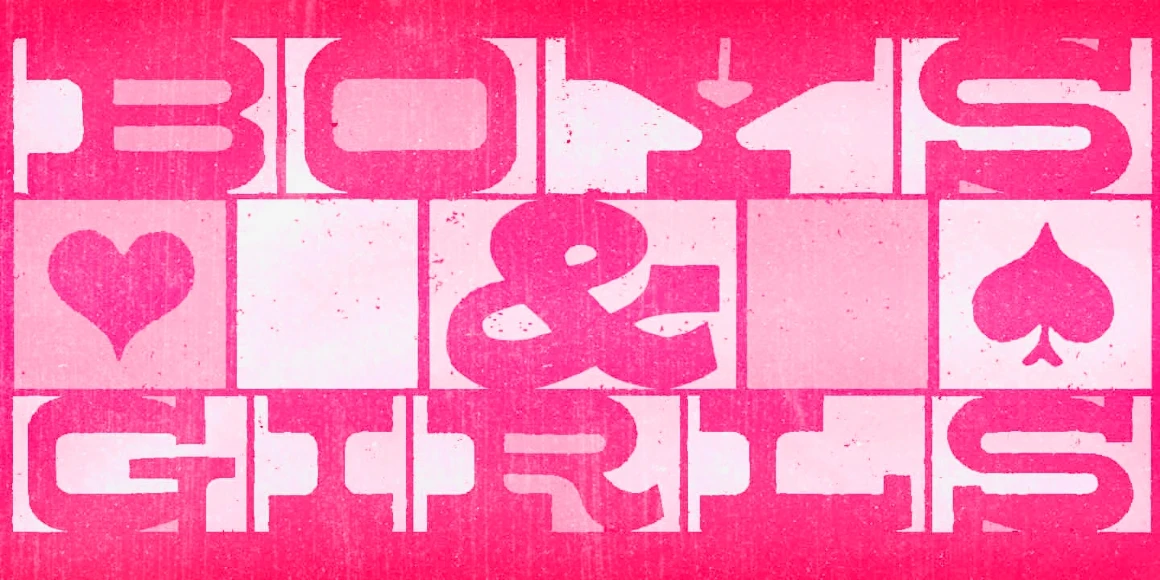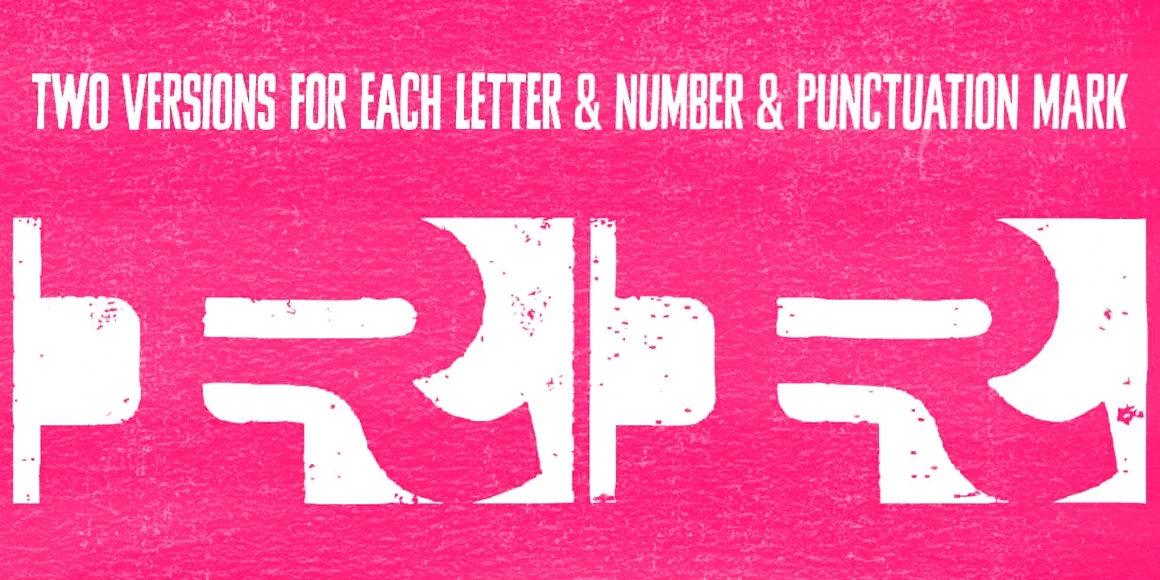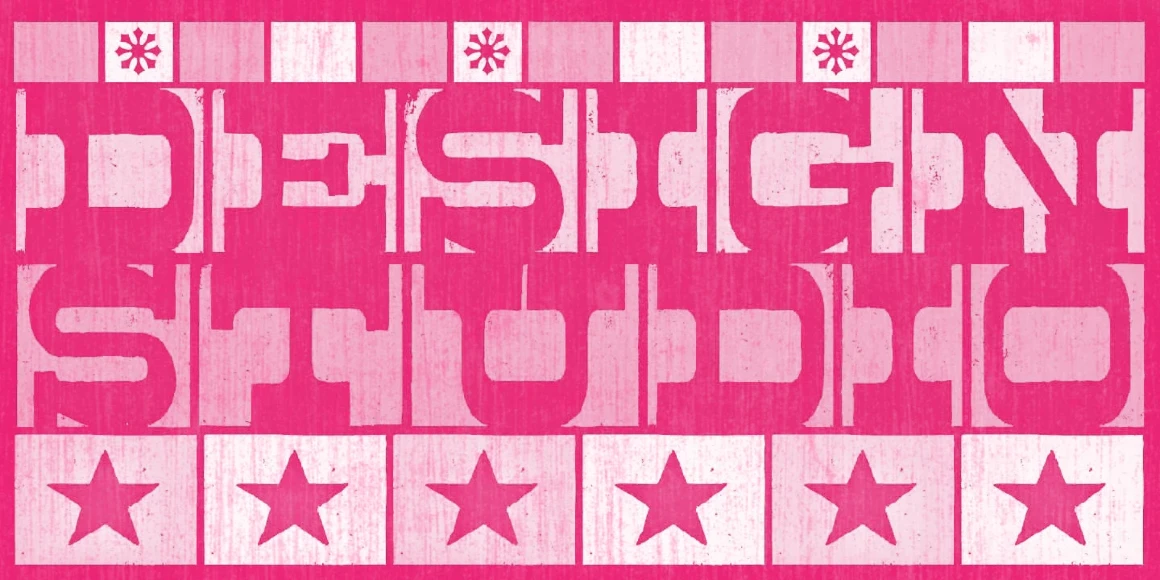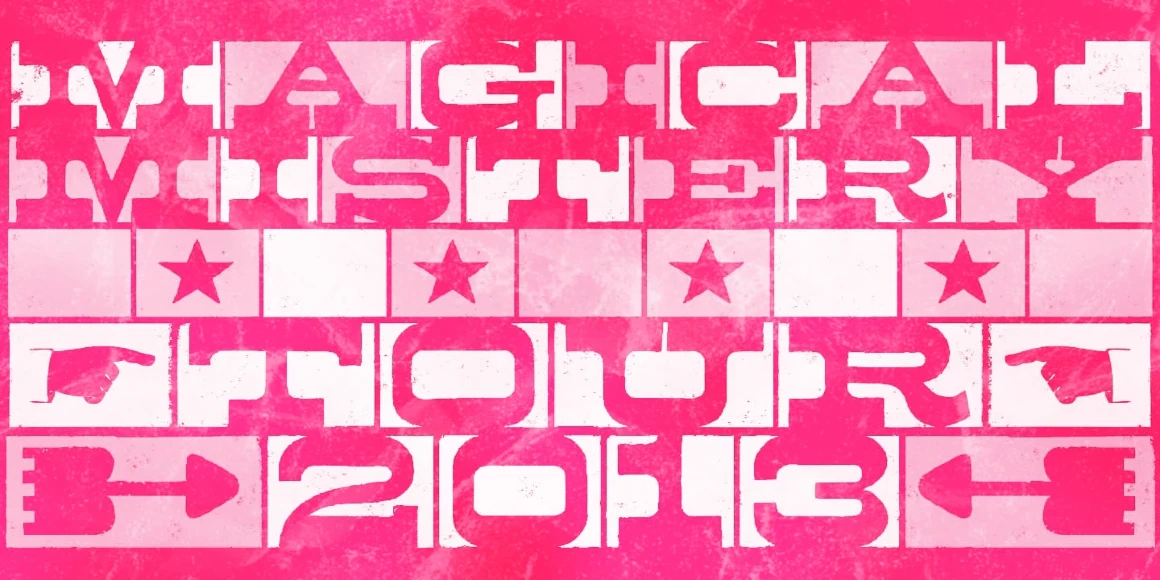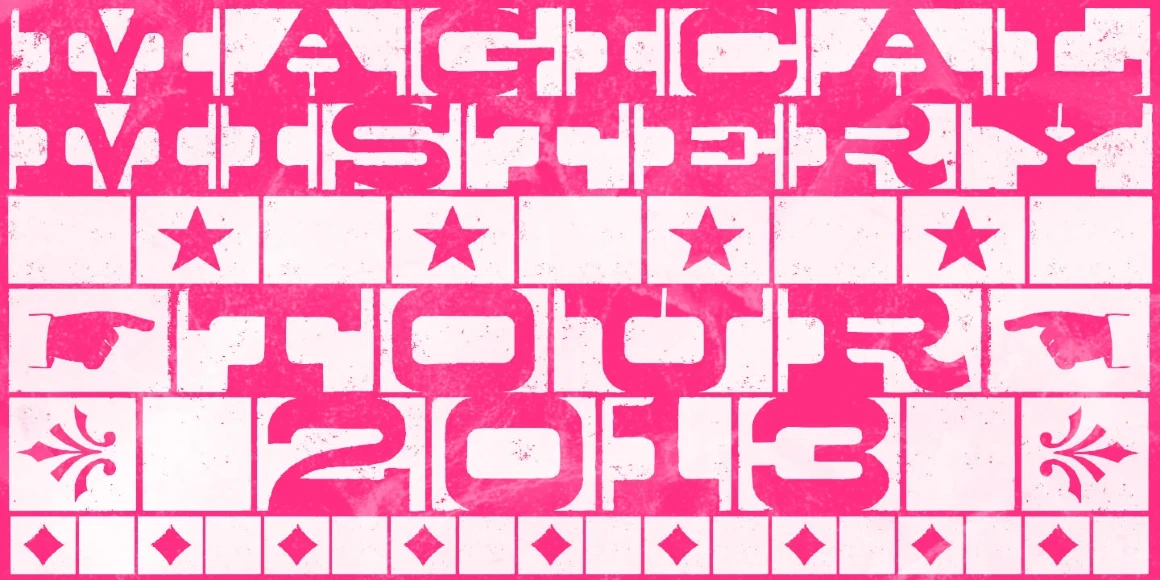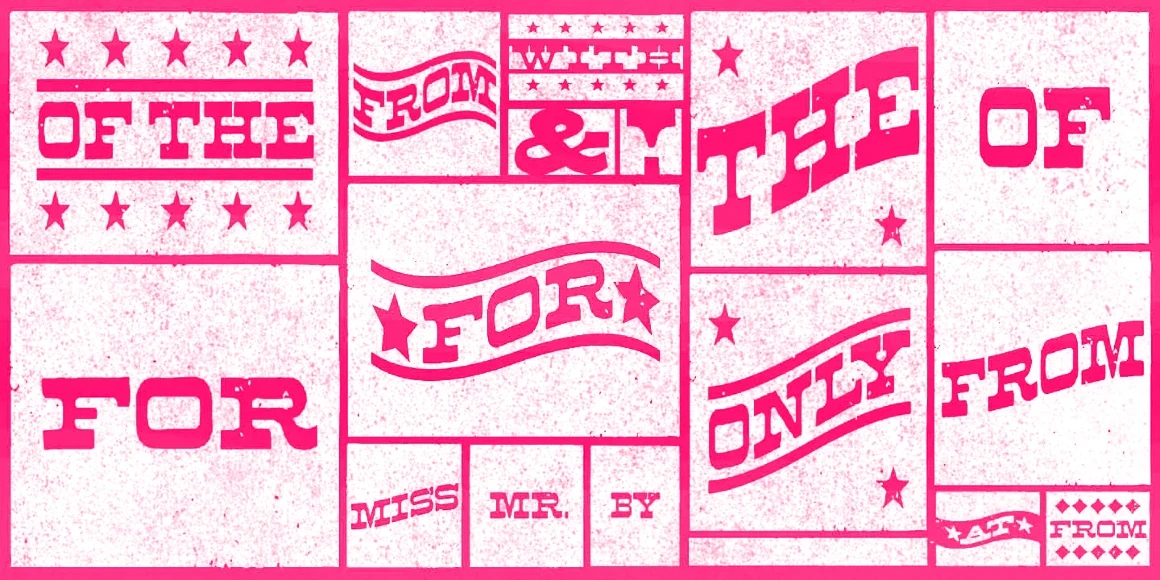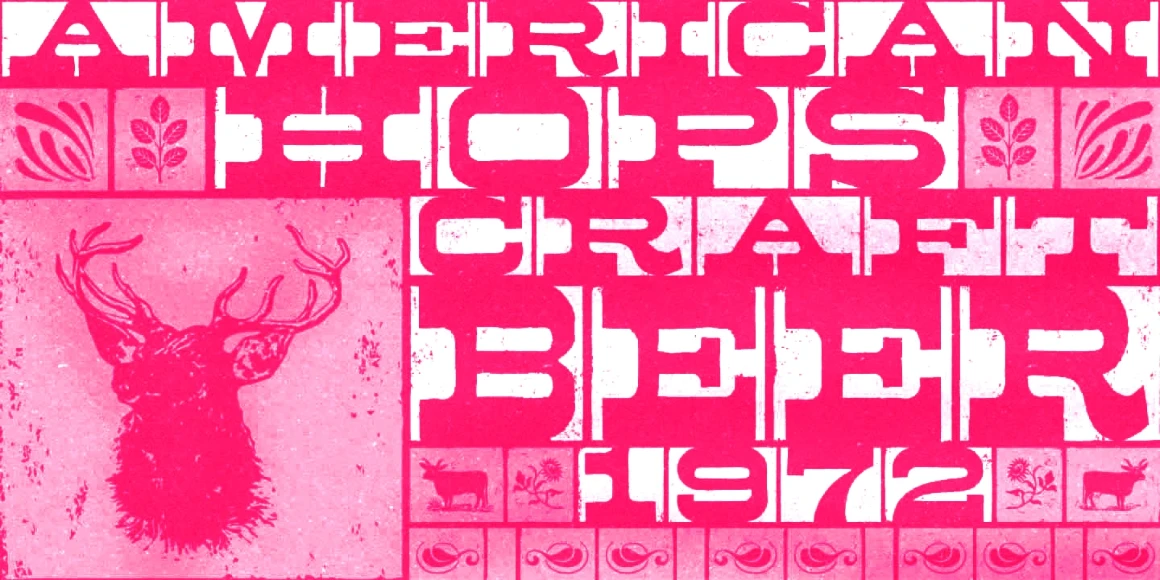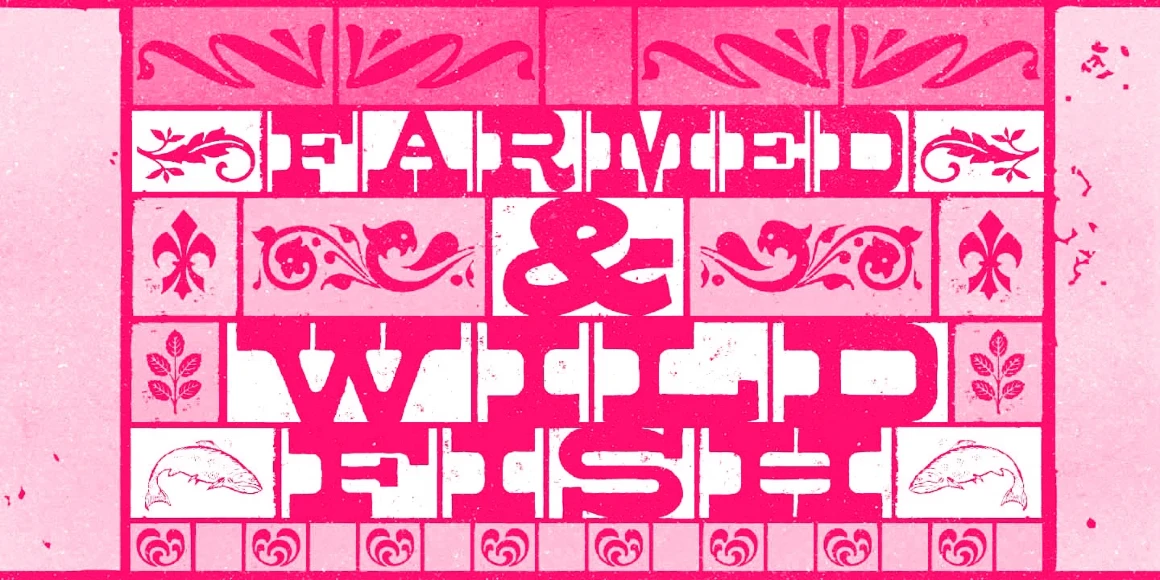
Mamute
Mamute is a block-rockin’ family with a cool letterpress look. This highly decorative typeface is inspired by the spirit of Aldine wood type from circa 1870. Each letter in the upper- and lowercase slots has a slightly different texture, giving the typeface a more natural, hand-crafted feel. Marujo comes in two widths — Regular and Condensed — and both can be used as layered fonts, making it easy to add color or depth. Ornaments and catchwords are also included to bring extra flair to your designs.